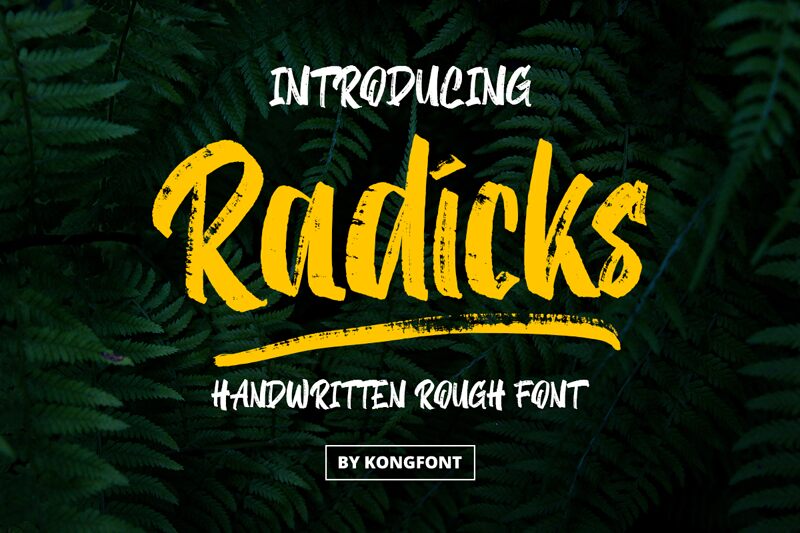
Radicks
Radicks font by Kong Font is a free brush display font that surges with dry-brush energy. Thick, inky downstrokes collide with scratchy, paint-skipped textures, while quick, angled rebounds keep the rhythm loose and loud. It’s the rare brush face that feels raw and unruly yet stays legible at a glance—great when you need grit without chaos.
Using Radicks, headlines punch through clutter: streetwear marks, gig posters, food truck menus, action thumbnails, craft packaging, and social promos all benefit from its scuffed, high-contrast bite. This free font shines at larger sizes and pairs cleanly with a condensed sans for body copy—let Radicks lead, and keep the companion type quiet.